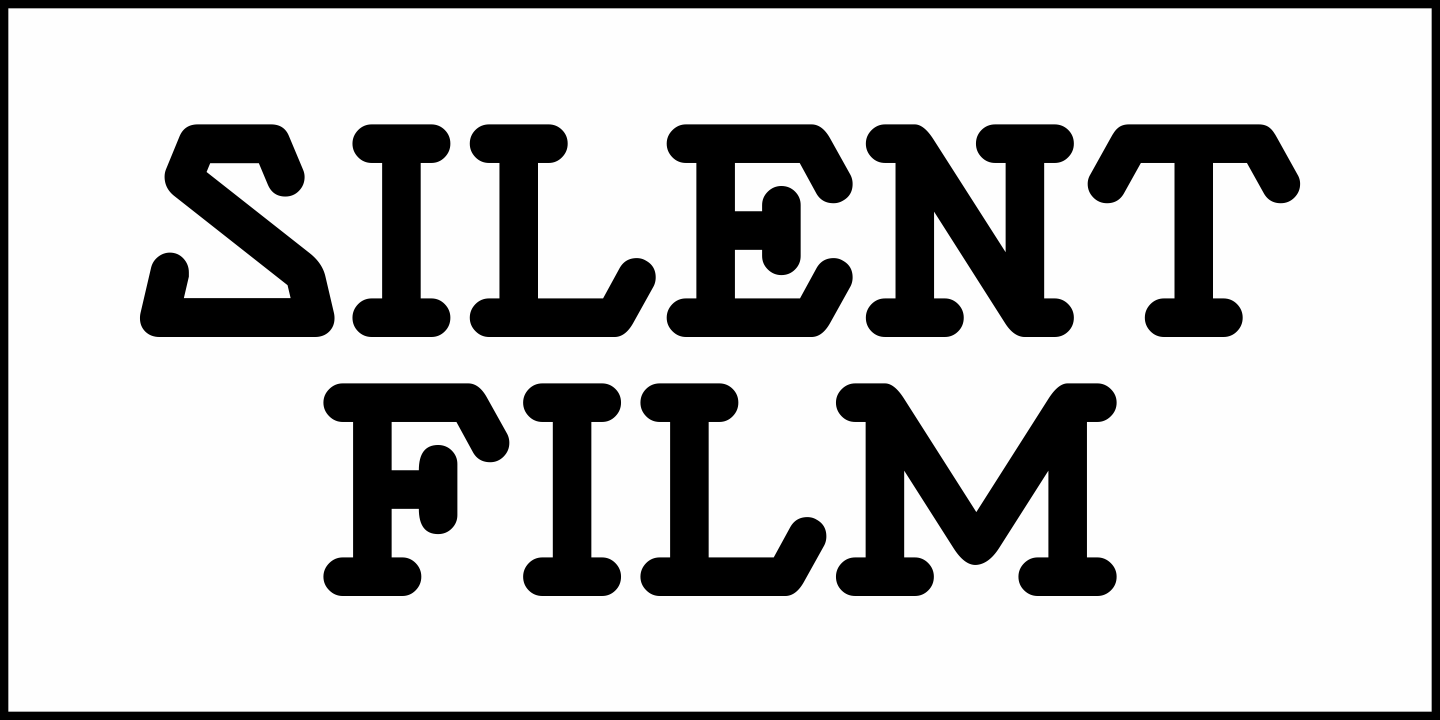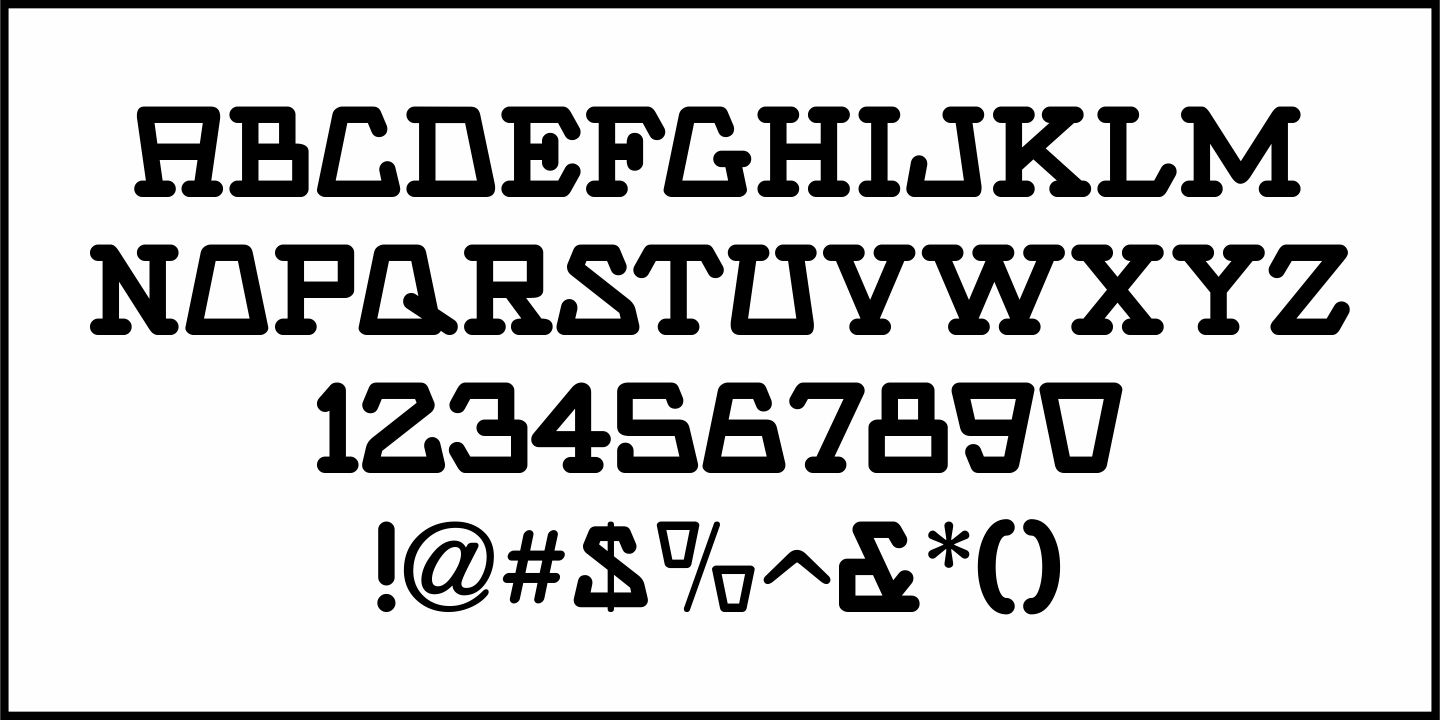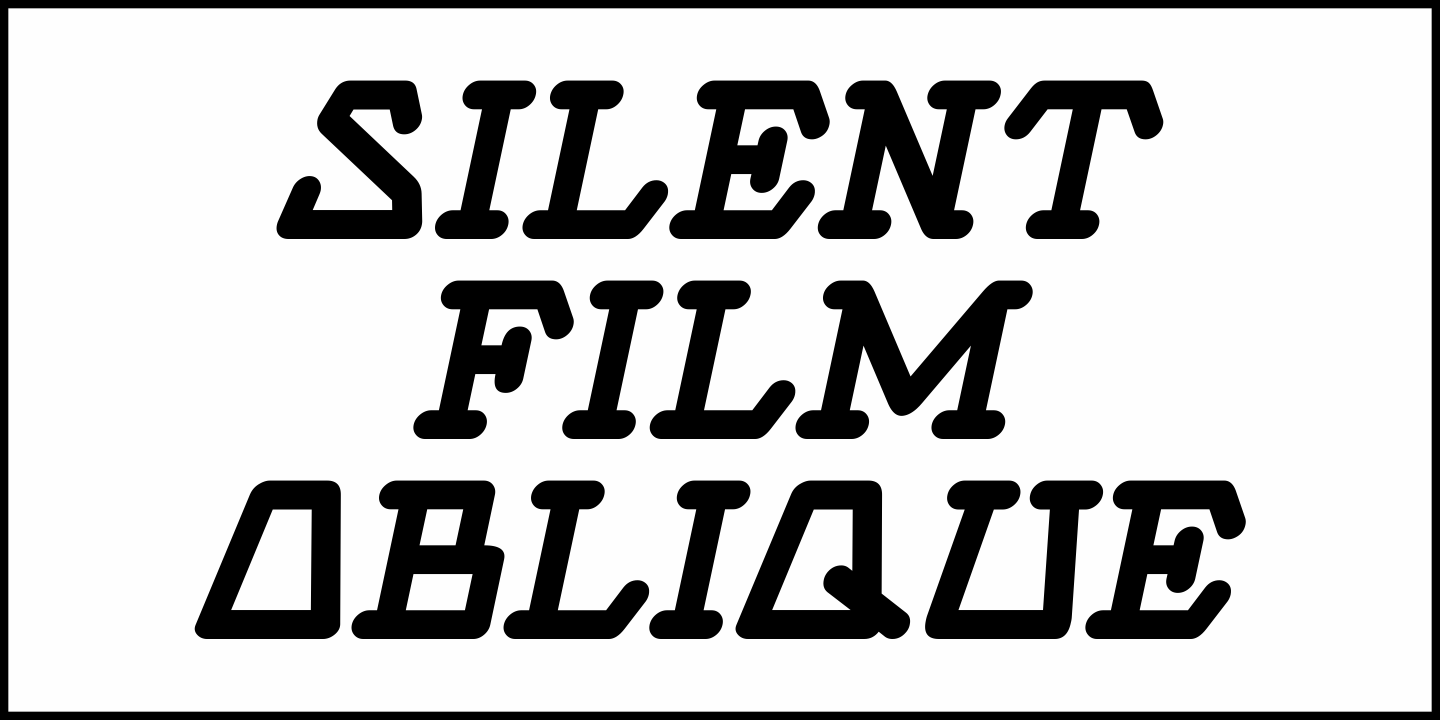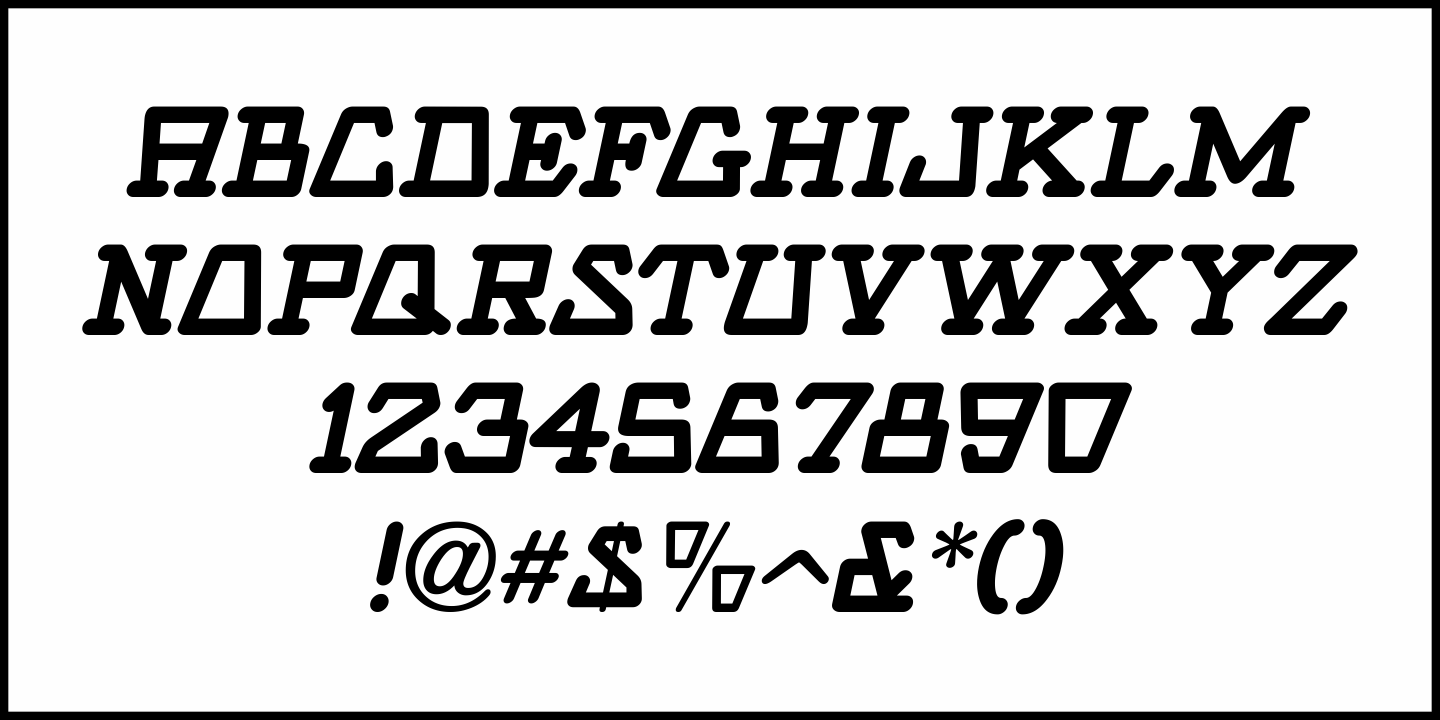
Silent Film
Built in 1928 in Wichita, Kansas, the Uptown Theater started out as a movie house, but today still exists as a dinner theater.
Online images of this vintage venue’s perpendicular wall sign show the theater’s name in an Art Nouveau influenced angular style with rounded terminals – similar to that of pen drawn sign lettering of the era.
Adapted as a digital type font, Silent Film JNL is available in both regular and oblique versions.